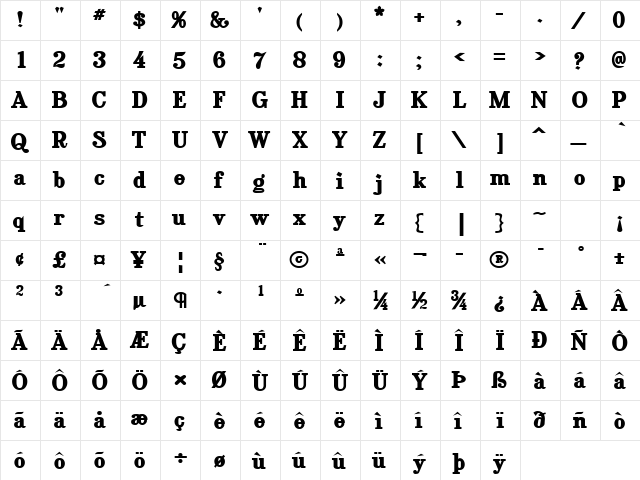
RataczakXBold Bold
Design Context for RataczakXBold Typeface
RataczakXBold takes a measured approach to typography — its balanced proportions and neutral character make it a reliable workhorse for both digital and print work. Its bold stroke weight gives it real presence on the page.